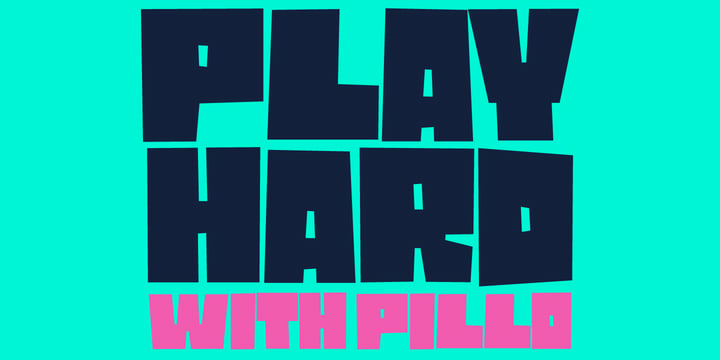
Pillo Pillo Font
Pillo Pillo FontTOMO Pillo! a blocky style fat face with attitude. Bold, heavy and fun! all at the same time! You will only need this font to make your designs stand out fresh!